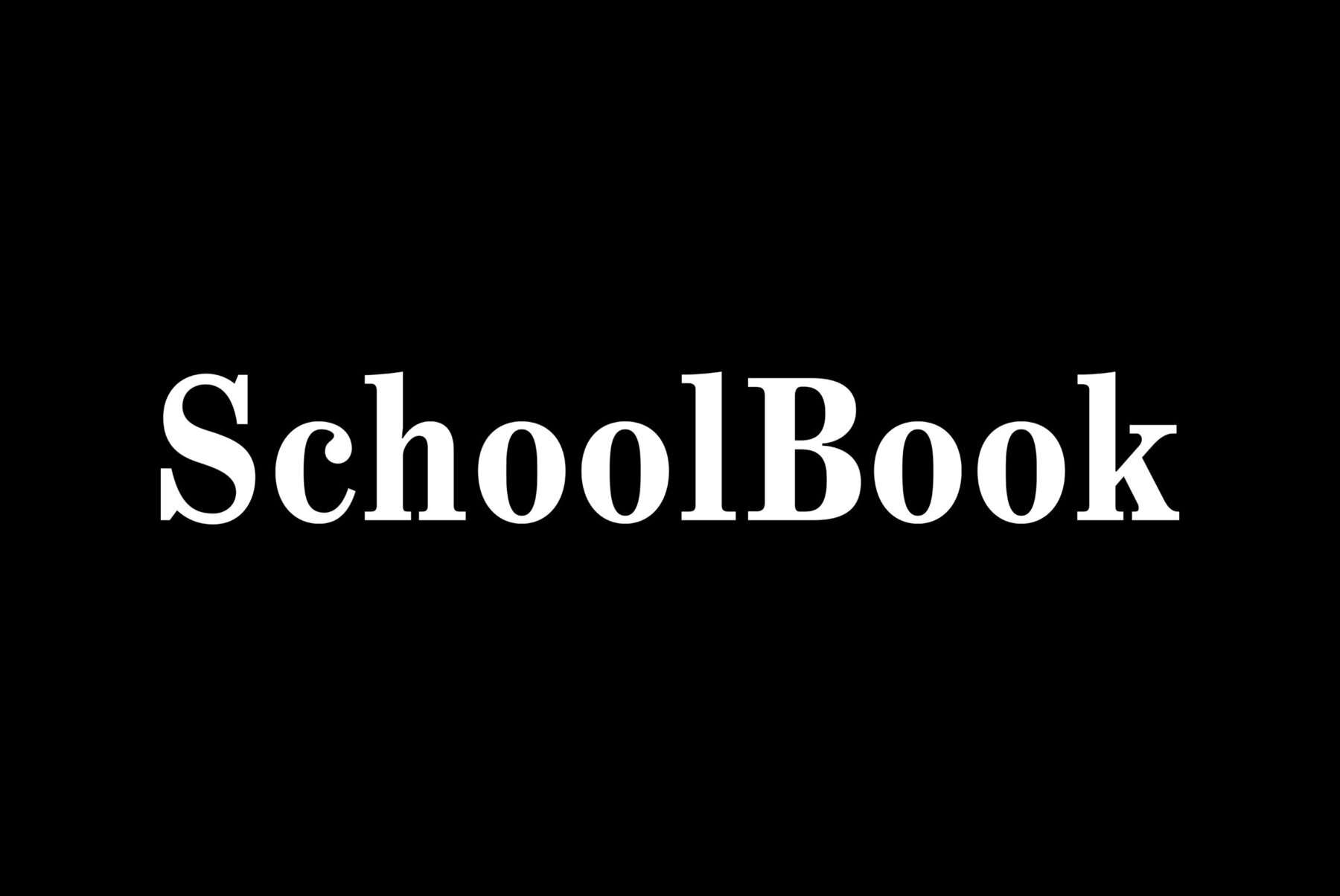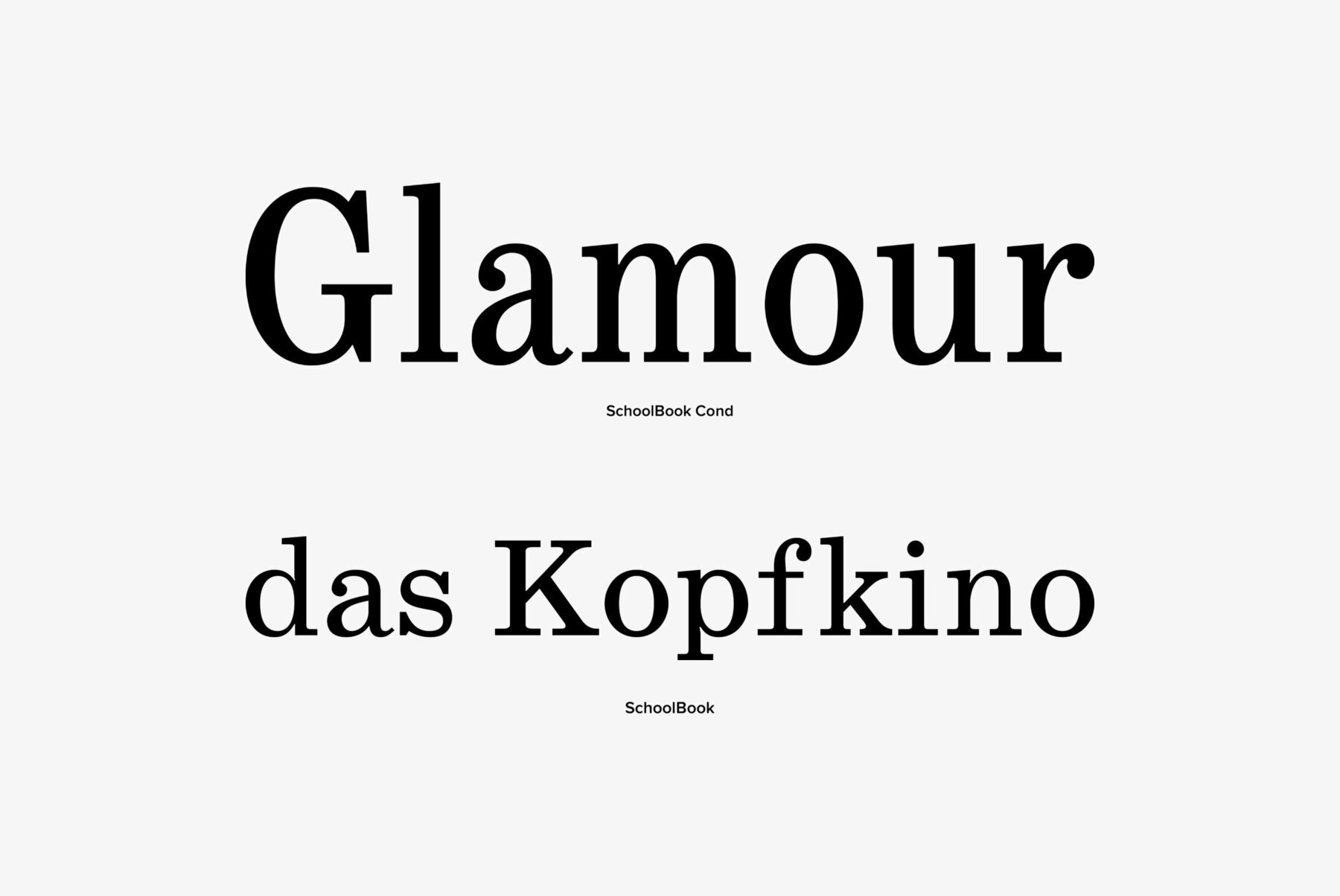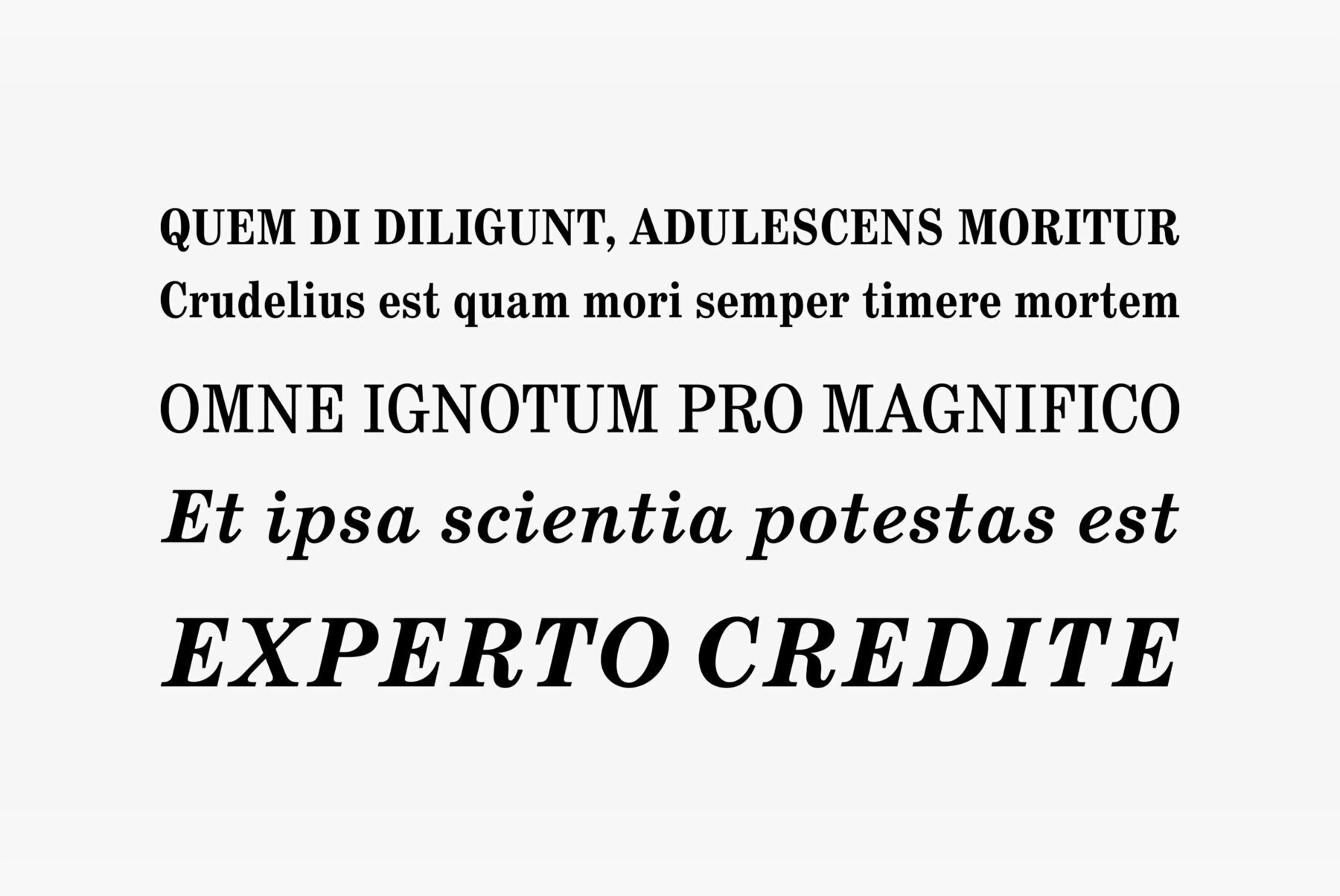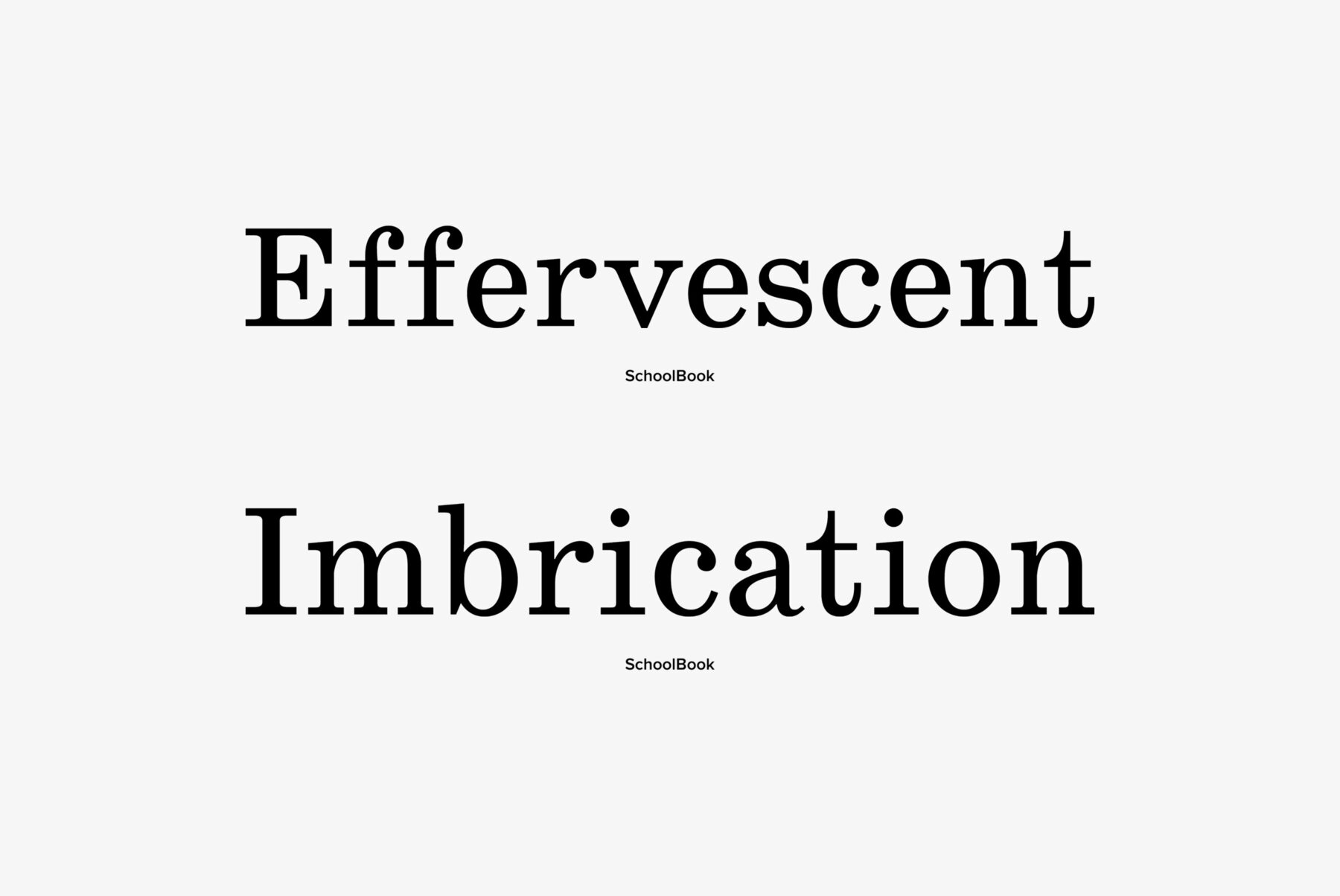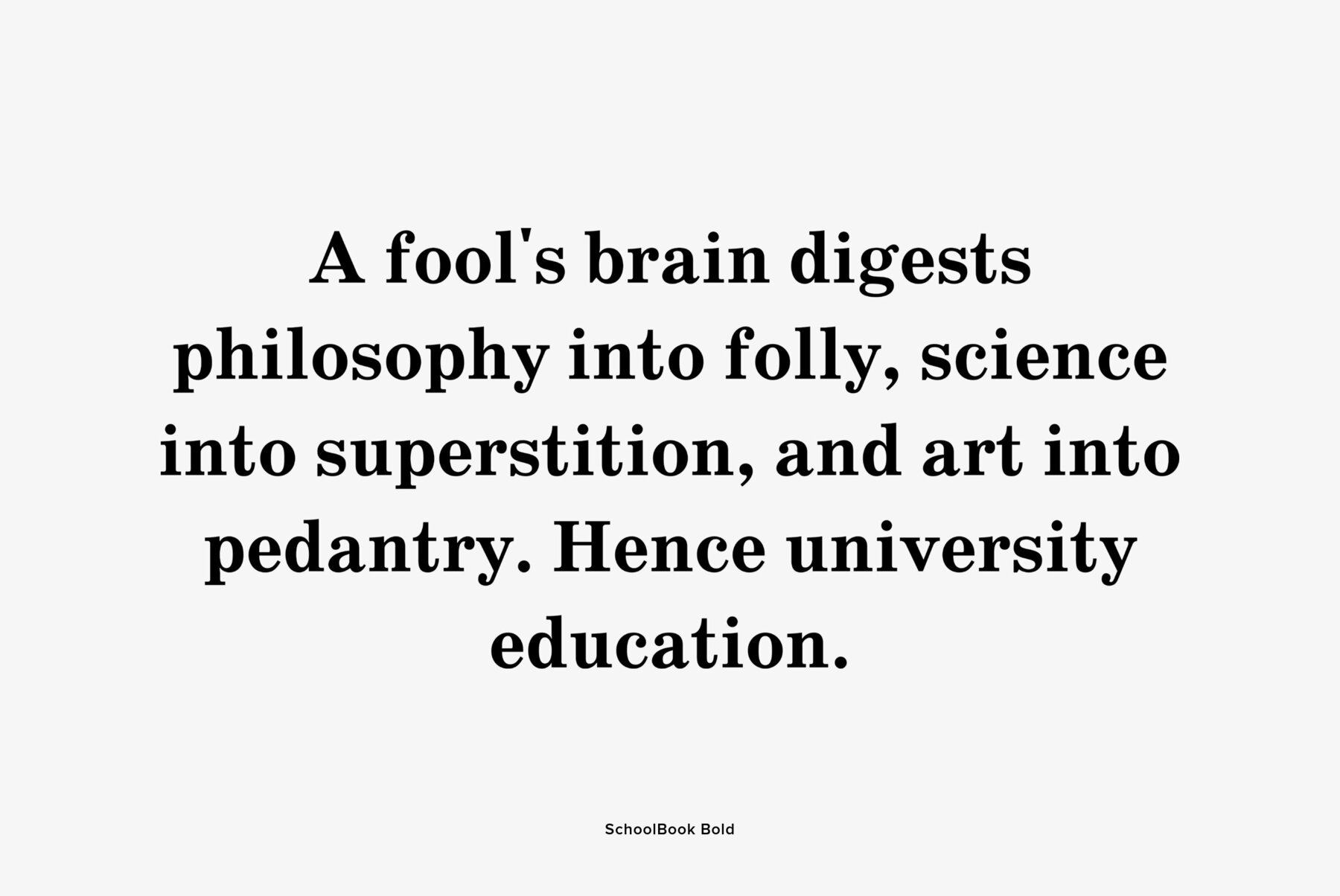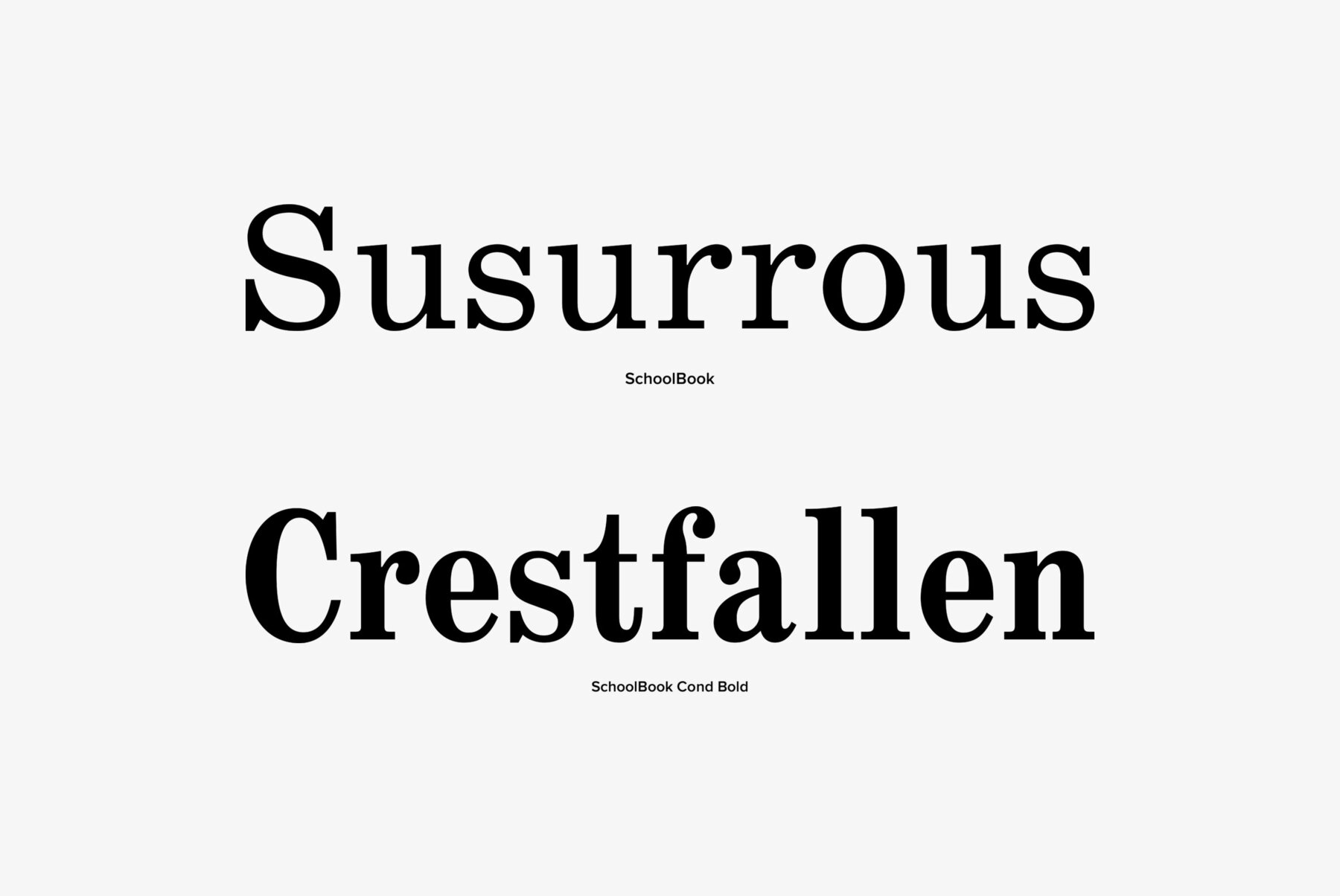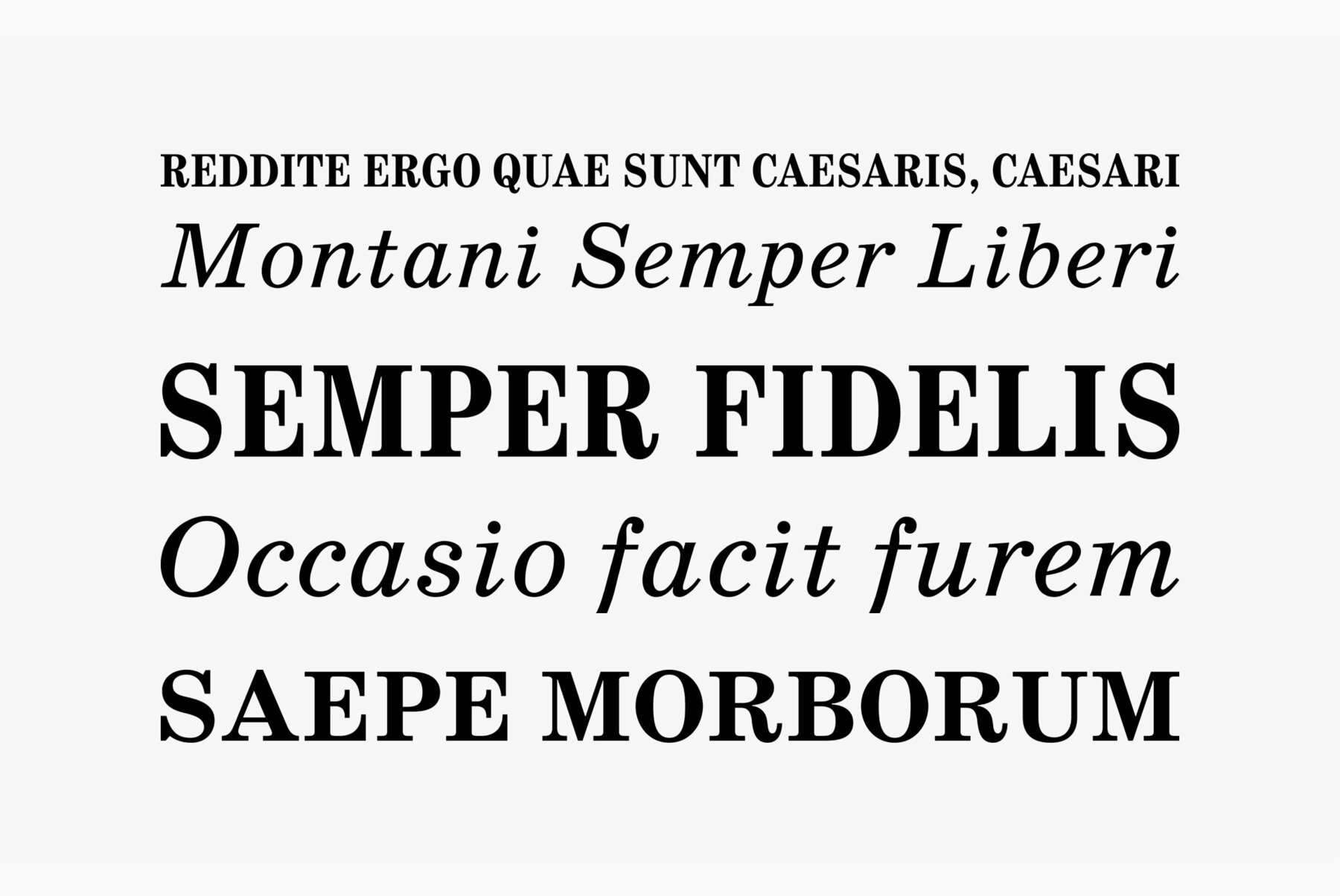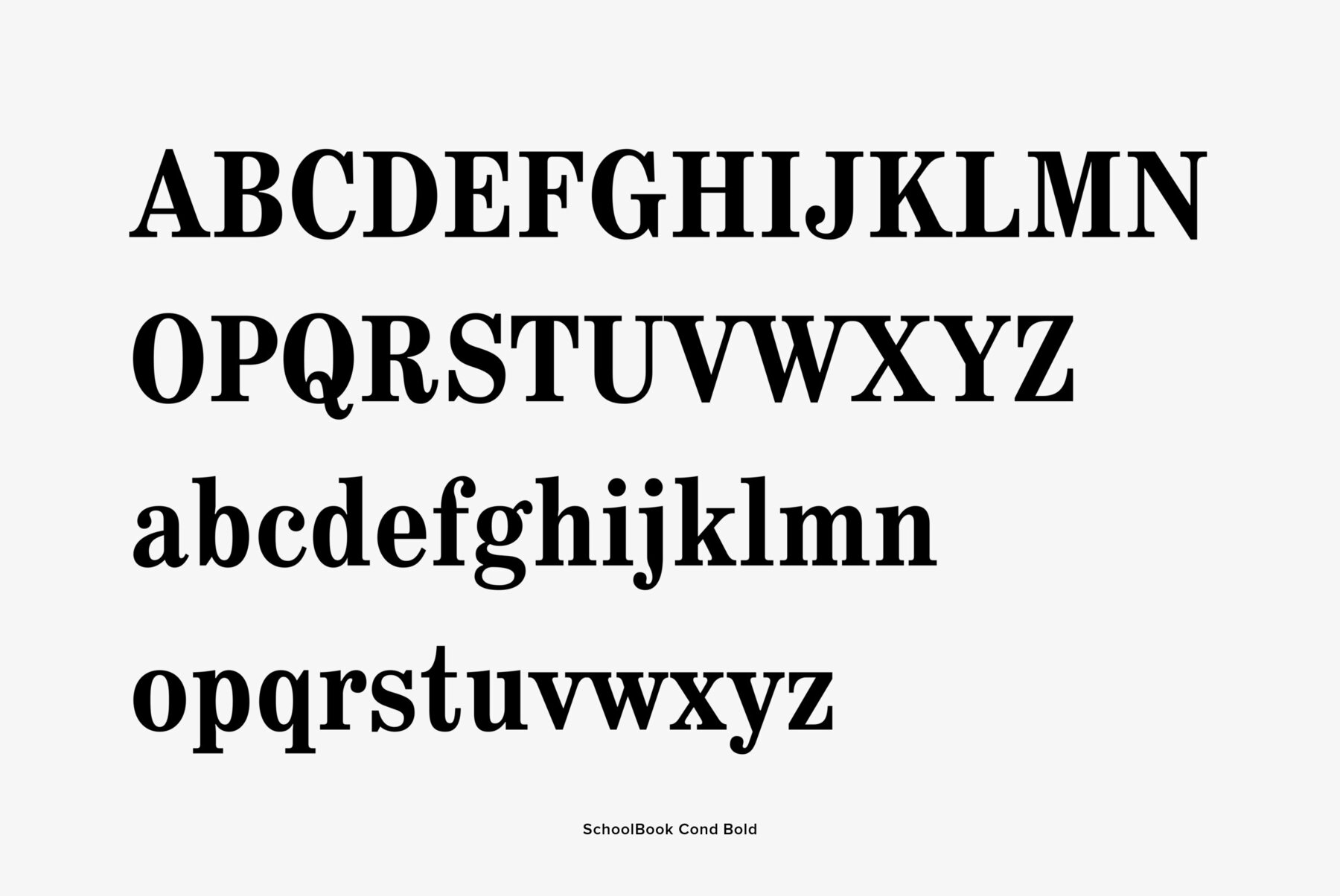
Schoolbook
The typeface was designed at the Polygraphmash type design bureau in 1949-61 (project manager Elena Tsaregorodtseva). Based on Shkolnaya ('School') typeface, 1939 (project manager Evgeny Chernevsky), a version of Century Schoolbook of American Type Founders, 1915-1923 by Morris F.Benton. The low-contrast text typeface of the Ionic-Legibility group, it is designed expressly for schoolbooks and children books.